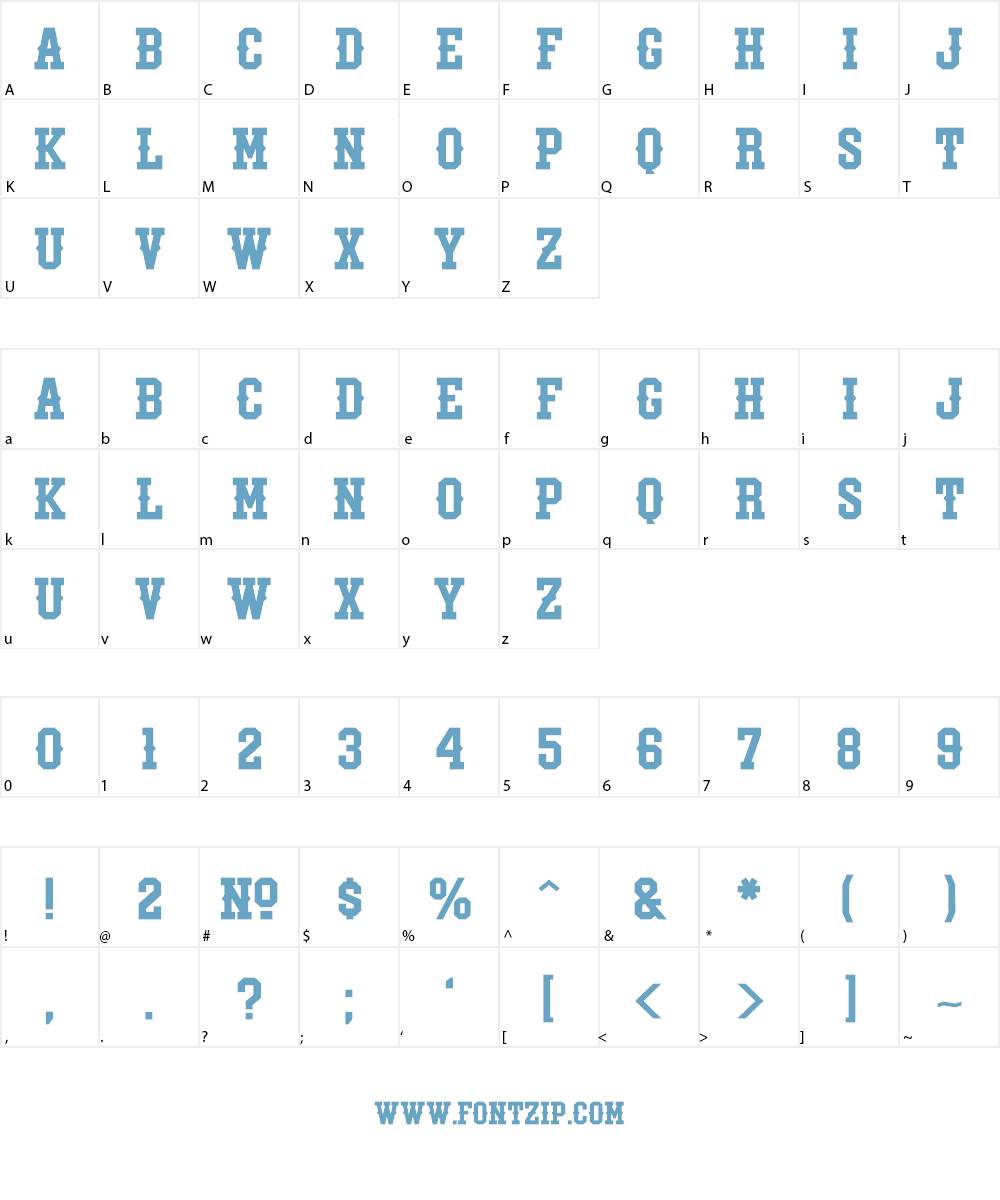
I once saw a t-shirt with lettering that looked like a hybrid between athletic and western styles. I searched for a similar font and couldn't find one, so I decided to make my own.